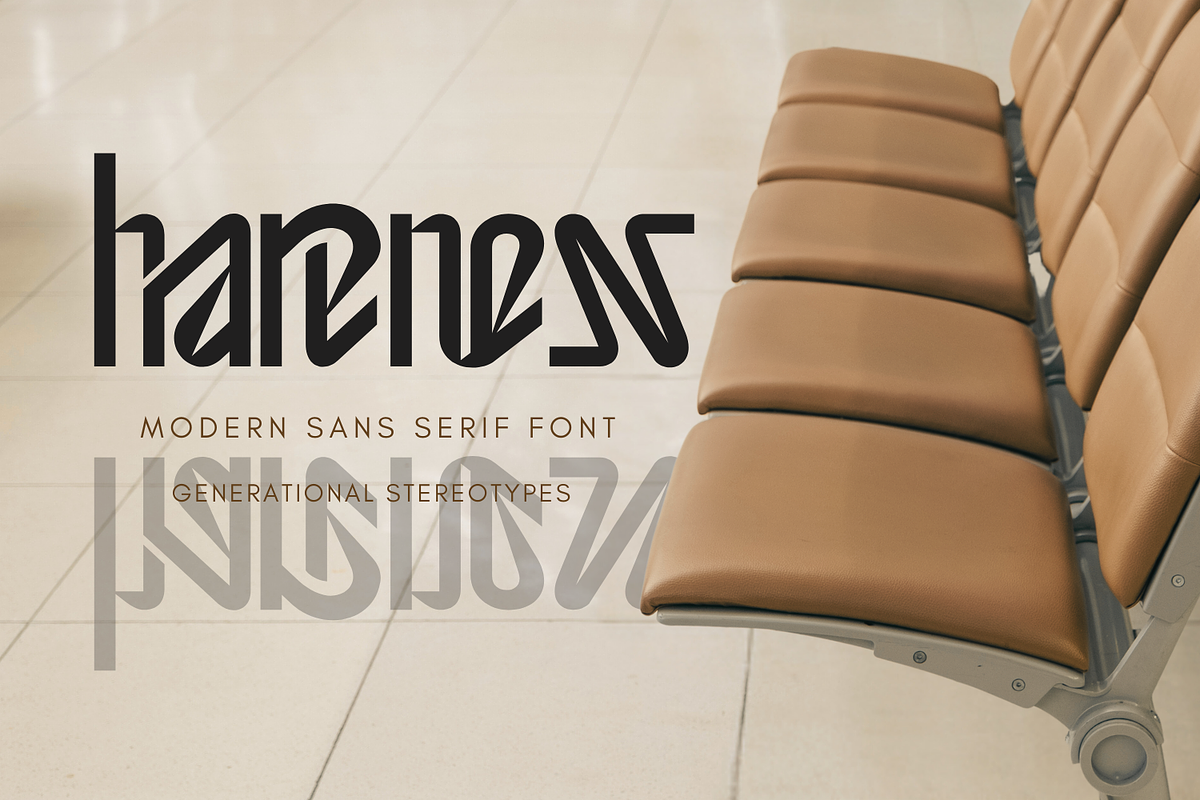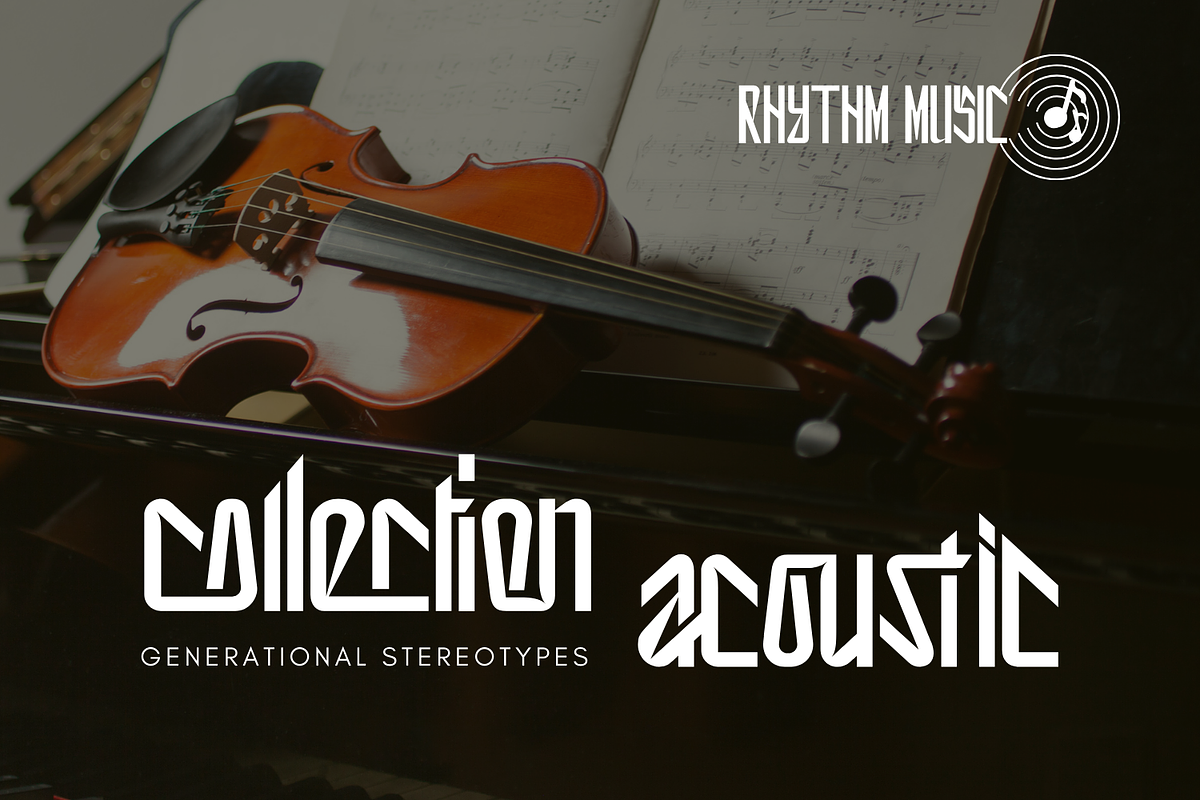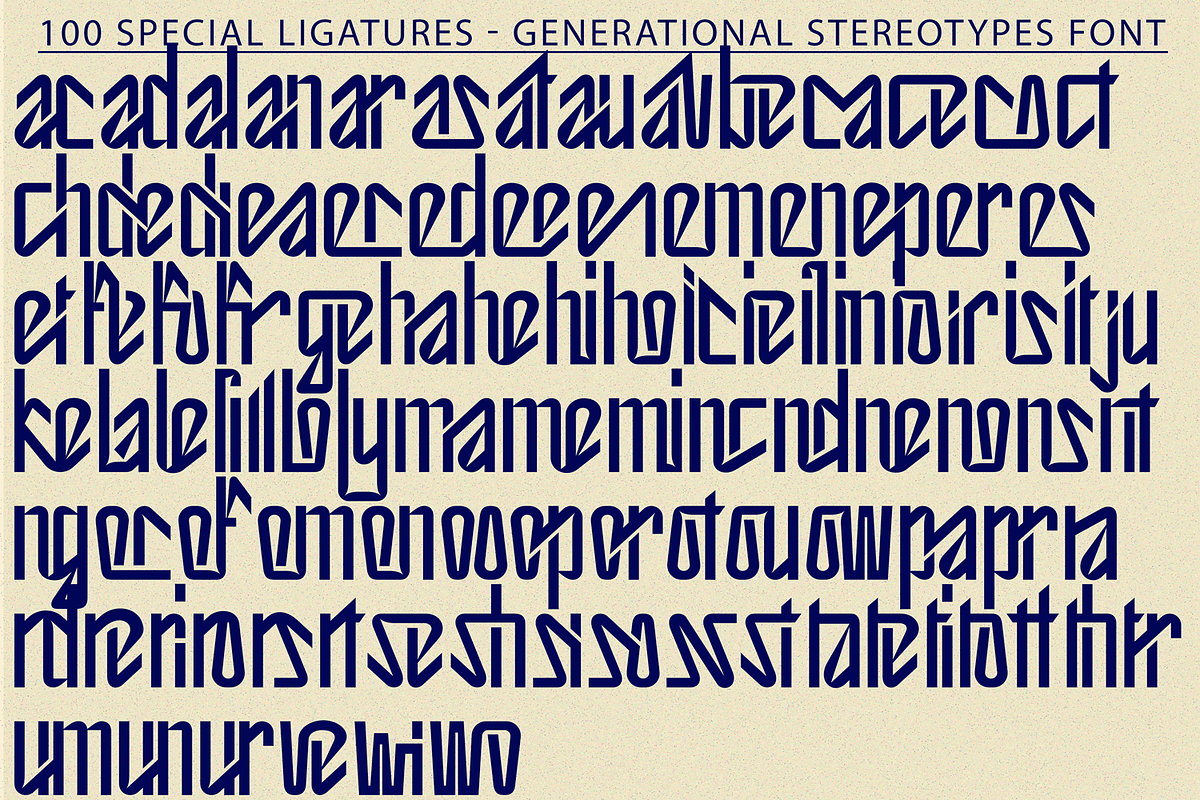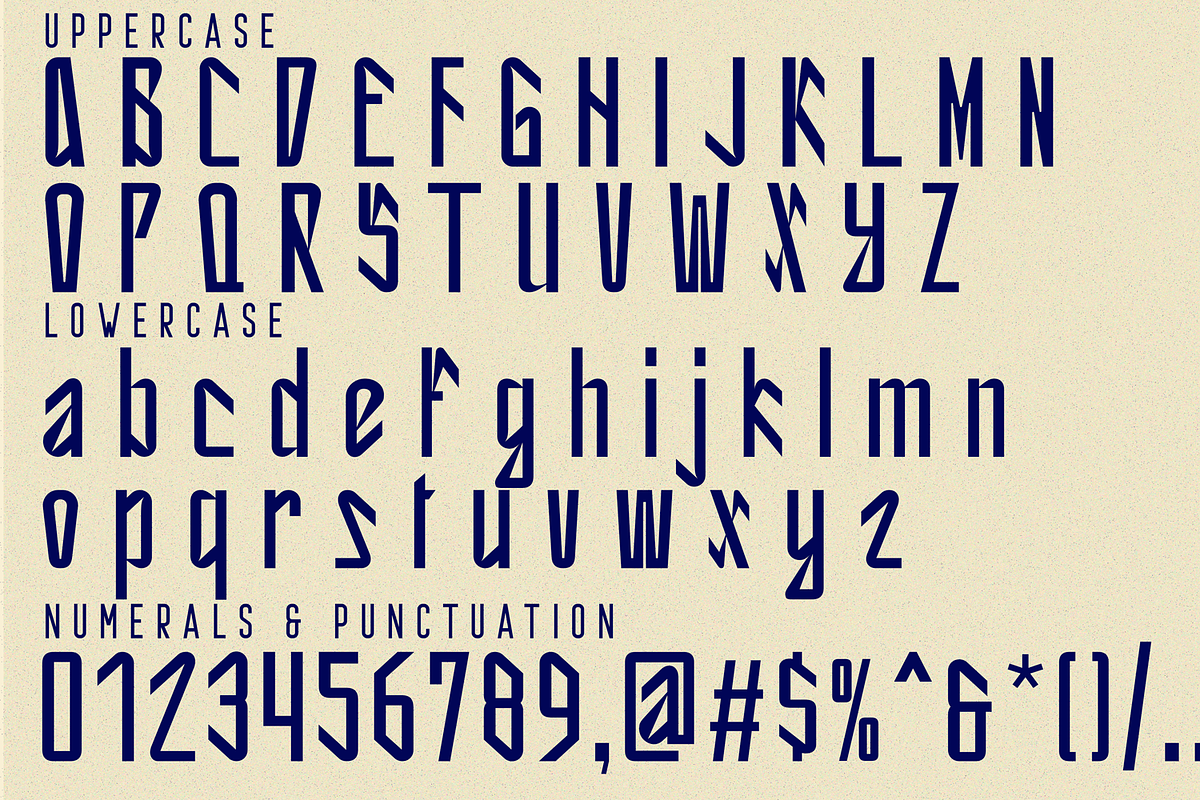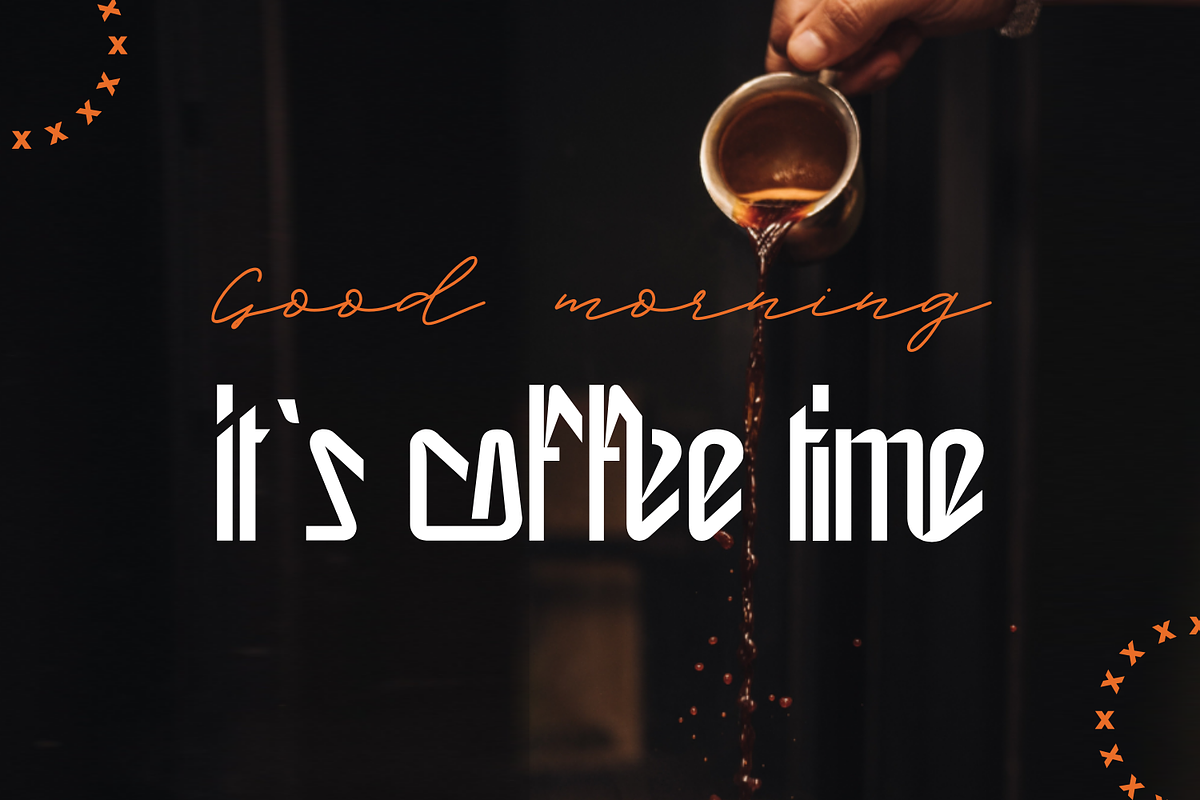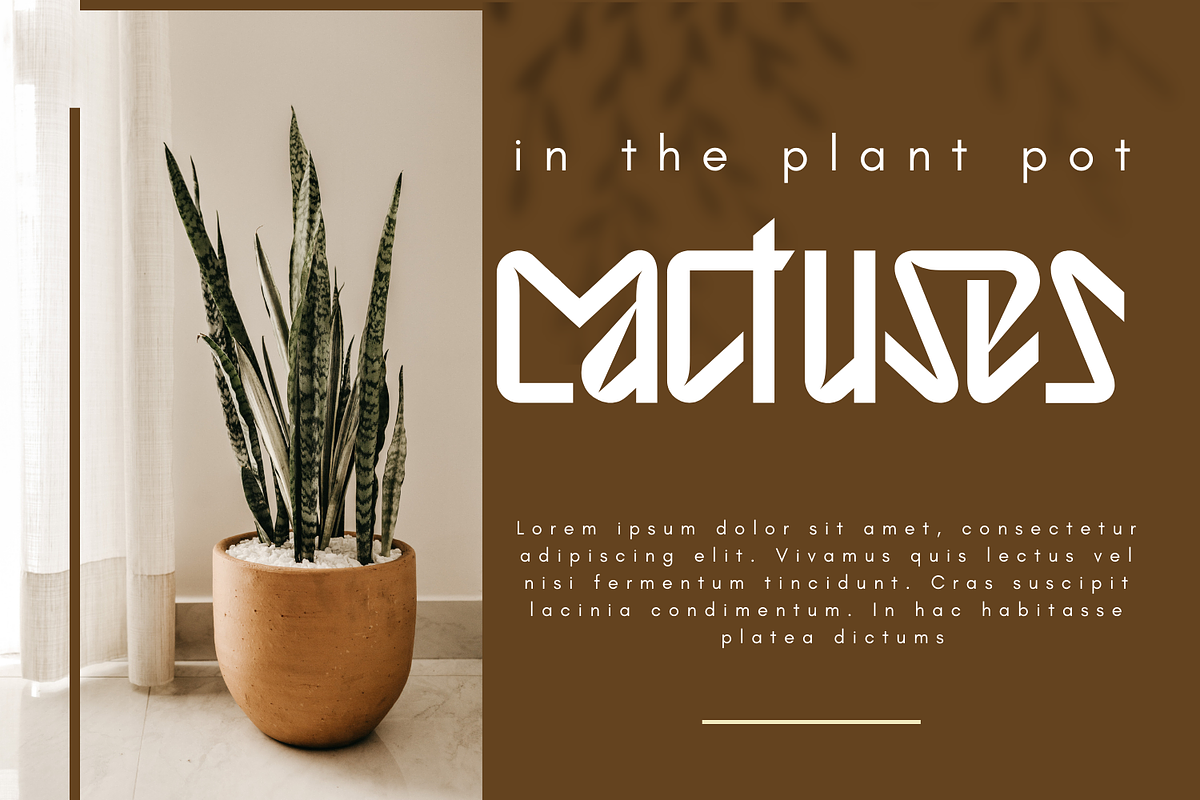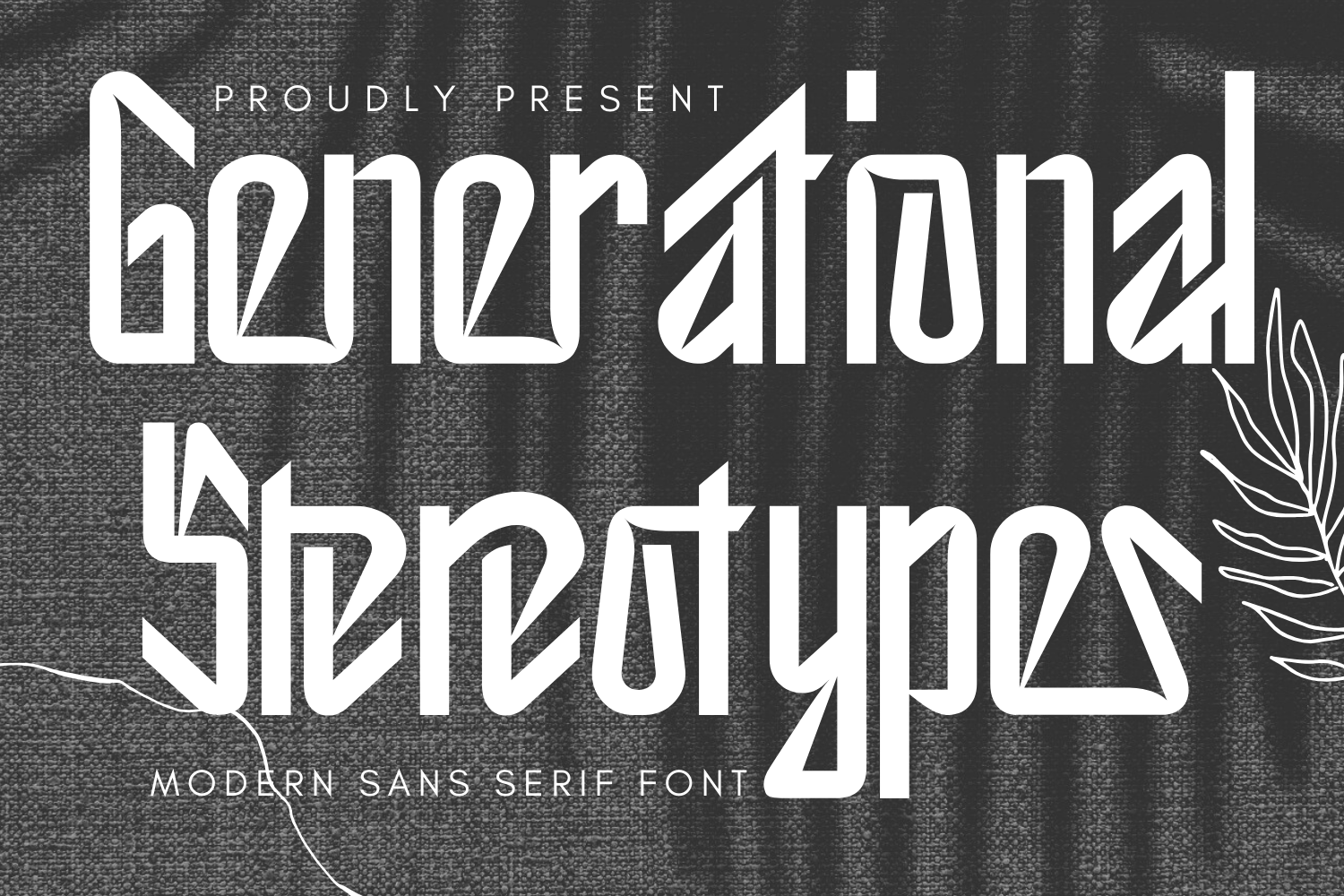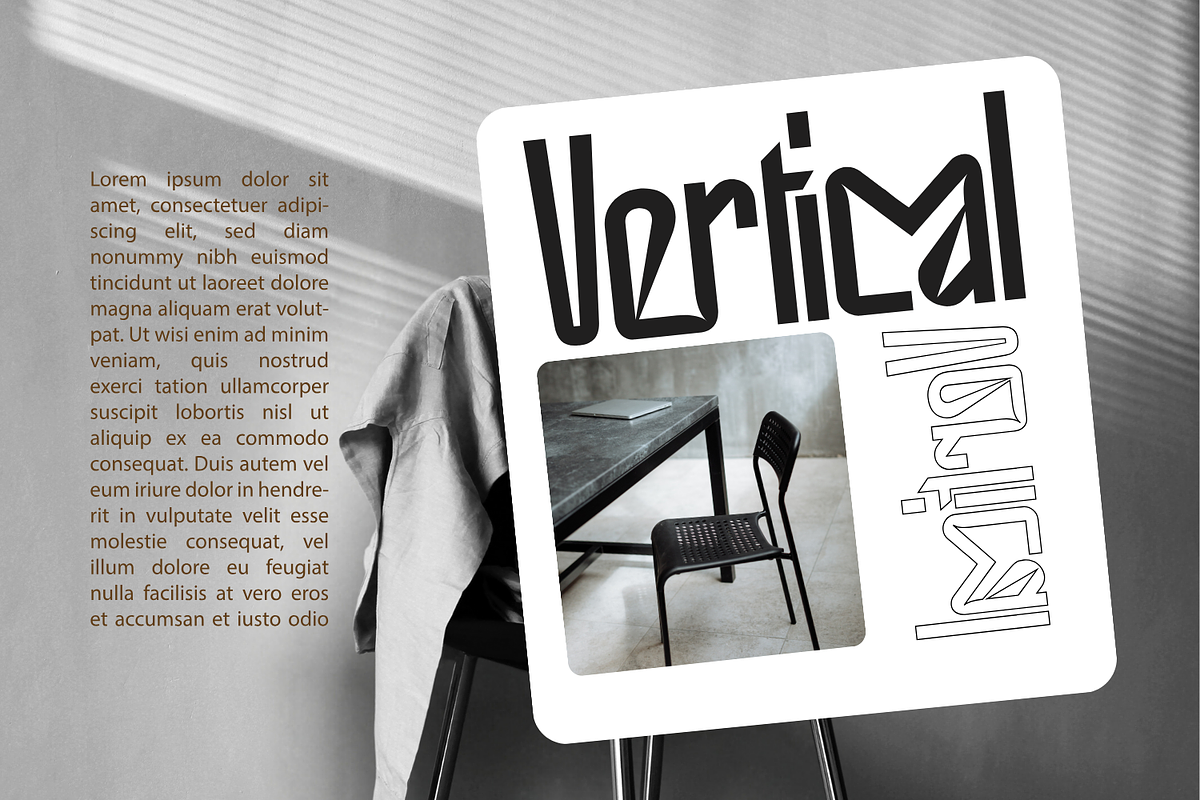
Generational Stereotypes Font
Generational Stereotypes Font is an extra condensed grotesque, made with its own unique character and form of typeface. A typeface inspired by the visuals of iconic sci-fi movies and TV shows. Its ultra-condensed style is perfect for fitting bold messages into tight spaces. From posters to websites, it's the ideal choice for making your project stand out in a futuristic world. It's a massive font that will grab the attention.
Generational Stereotypes was built with OpenType features and includes 100 ligatures, alternate, numbers, punctuation, and it also supports other languages.
ac ad al an ar as at au av be ca ce ch co ct de di ea ec ed ee el em en ep er es et fe fo fr ge ha he hi ho ie ic il in io ir is it ju ke la le li ll lo ly ma me mi nc nd ne ng no nt ns oc of om on oo op or ot ou ow pa pr ra rd re ri ro rs rt se sh si so ss st ta te th ti to tr tt um un ur ve wi wo
This font also included full set of:
- Special Ligatures